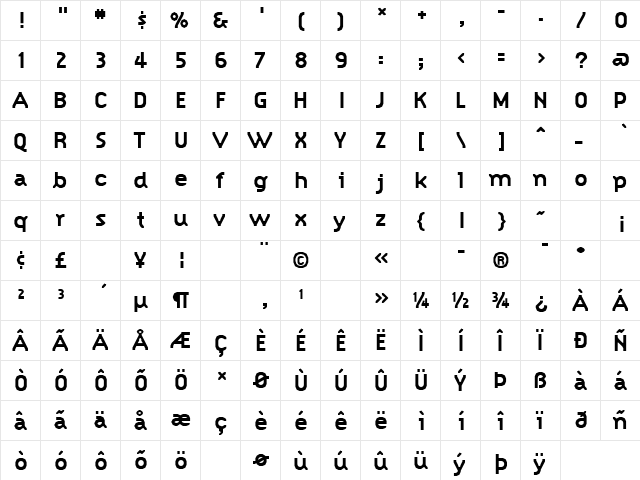
CitizenBold Bold Font Preview
CitizenBold Bold
Design Context for CitizenBold Typeface
CitizenBold takes a measured approach to typography — its balanced proportions and neutral character make it a reliable workhorse for both digital and print work. The heavy weight commands attention and anchors typographic hierarchies.